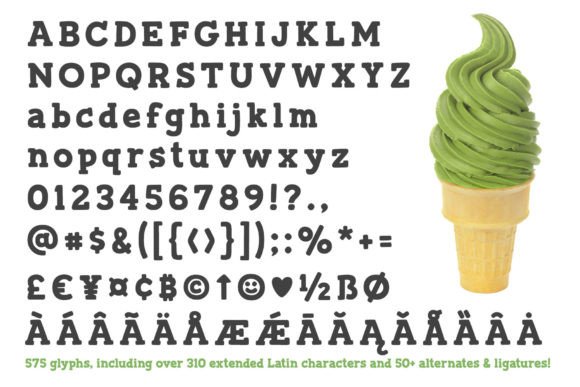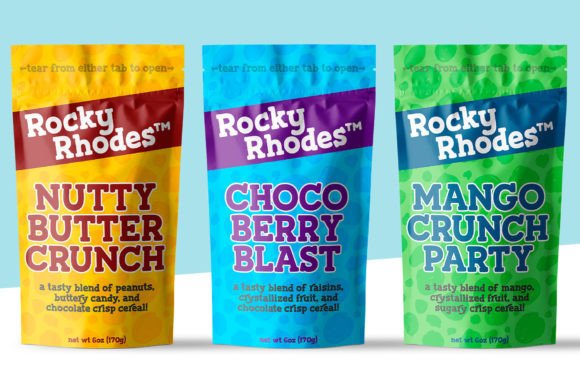
Frogurt: A Soft and Playful Slab Serif Font
Frogurt is a soft, plump, rounded slab serif font full of fun! Its fat curves are reminiscent of frozen yogurt, playfully embracing the shorthand “frogurt” over “fro-yo”. This unique typeface was inspired by a 30-year-old hand-carved wooden sign and created to fill a gap in the market for soft, funky slab serif fonts.
Key Features of Frogurt
- Soft Design: Features big pillowy slab serifs for a plump, rounded look.
- Playful Aesthetic: Offers a slightly irregular baseline and just enough tilt for a fun vibe.
- Clean and Readable: Maintains clarity despite its playful nature.
- Versatile Application: Suitable for both printing and cutting projects.
Technical Specifications
- Over 570 glyphs in total
- Basic character set (A-Z, a-z, 0-9, punctuation)
- Over 310 extended Latin characters for language support
- More than 50 alternates and ligatures for variety
- PUA-encoded for easy access to all characters
Best Uses for Frogurt
Frogurt’s unique characteristics make it particularly well-suited for:
- Playful branding projects
- Fun packaging designs
- Cheerful signage and posters
- Engaging children’s book titles
- Unique logo designs
- Charming greeting cards
- Eye-catching digital graphics
When using Frogurt in your designs, keep these tips in mind:
- Use for headlines or short text to showcase its soft, plump style.
- Try different sizes to highlight the font’s unique features.
- Experiment with the alternates and ligatures to add flair to your designs.
- Consider using it for cut-out designs, as it works well for both printing and cutting.
To sum up, Frogurt is a delightful choice for designers seeking a soft, fun slab serif font. Its unique blend of playfulness and readability makes it perfect for a wide range of creative projects. Whether you’re designing cheerful branding, creating engaging children’s content, or crafting eye-catching graphics, Frogurt offers the perfect mix of whimsy and clarity.
Moreover, Frogurt’s distinctive design allows it to stand out in various contexts where a soft, friendly look is desired. From packaging to signage, this font can elevate your projects with its unique style. Also, its extensive character set and PUA encoding ensure versatility and ease of use across different applications.
In conclusion, Frogurt truly captures the essence of fun and softness in slab serif typography. Its thoughtful design, inspired by hand-carved signage, fills a gap in the market for fonts that are both playful and functional. For those wanting to add a touch of whimsical charm to their work, Frogurt can enhance themed creations with its distinctive style. Ultimately, it’s an ideal choice for designers aiming to make a soft, fun impact across a wide range of creative projects.